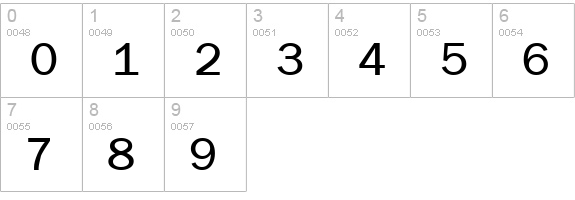
LibraryGothicMedium Font Details
LibraryGothicMedium is a timeless and sophisticated font that exudes an air of elegance and refinement. Its clean lines and strong, bold strokes make it perfect for conveying a sense of authority and professionalism in any design project. The classic yet modern design of LibraryGothicMedium makes it versatile and well-suited for a wide range of applications, from branding and advertising to editorial and web design. What sets LibraryGothicMedium apart is not only its impeccable design, but also the fact that it is available for free download at FontsMarket.com. This means that you can elevate your projects with this premium font without having to worry about any additional costs. Whether you're working on a personal project or a client's commission, LibraryGothicMedium is an excellent choice that will help you achieve your desired aesthetic with ease. Download LibraryGothicMedium today and experience the power and sophistication of this exceptional font.